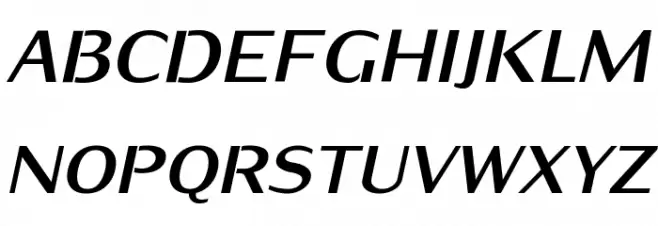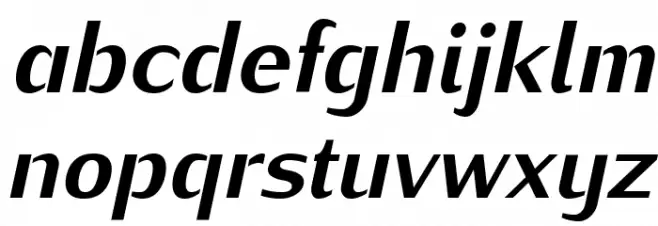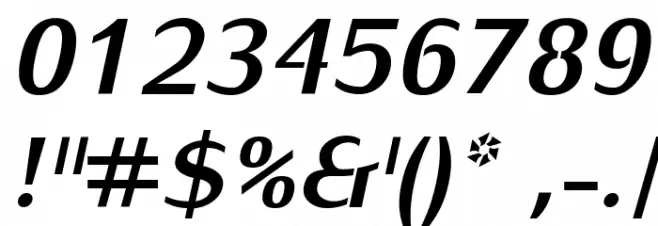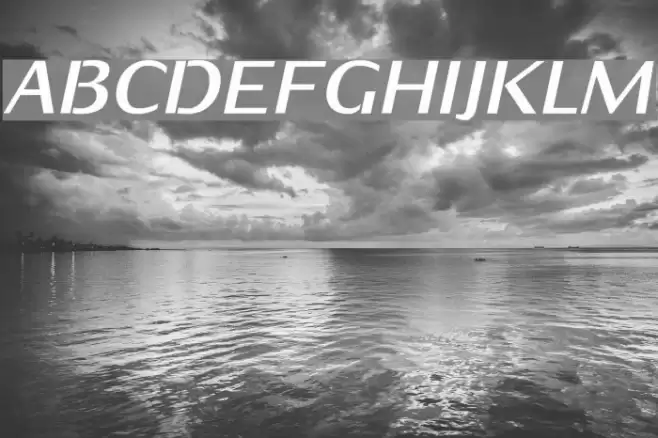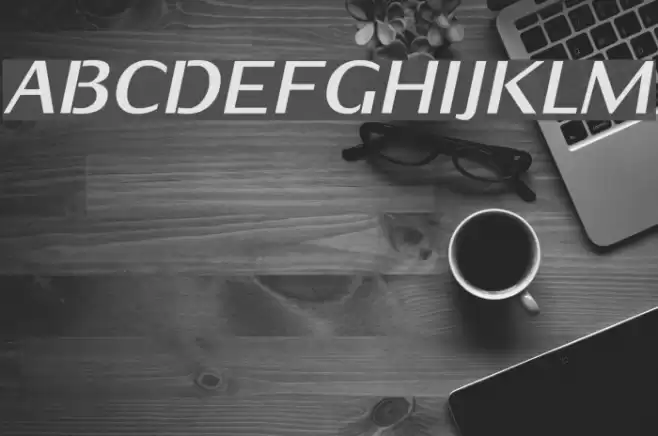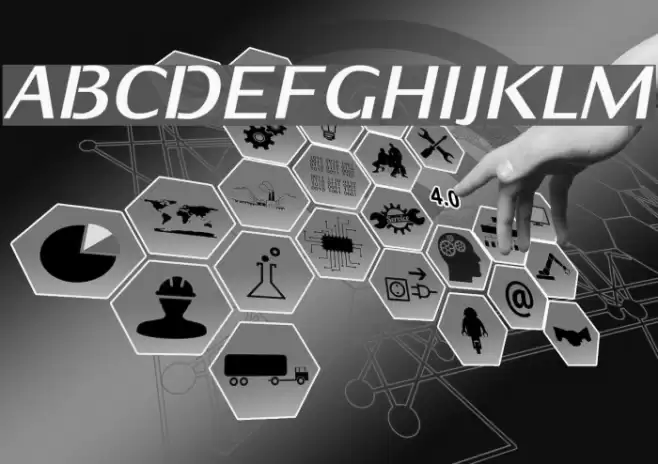
KurierHeavy-Italic
This typeface presents a bold and dynamic appearance with its heavy italic style. The characters are slightly slanted, adding a sense of motion and urgency. The strokes are thick and consistent, providing a strong visual impact. The uppercase letters are tall and commanding, while the lowercase letters maintain readability with a slight curve. Numbers are clear and distinct, making them suitable for various applications. The special characters are well-integrated, maintaining the overall aesthetic of the typeface. This font is ideal for making a statement in any design project.
A bold, heavy italic typeface with strong, dynamic strokes.
- Proposed Projects: Ideal for headlines, posters, branding, and advertising where a strong, impactful message is needed.
- Use Case: Headlines, Logos, Posters